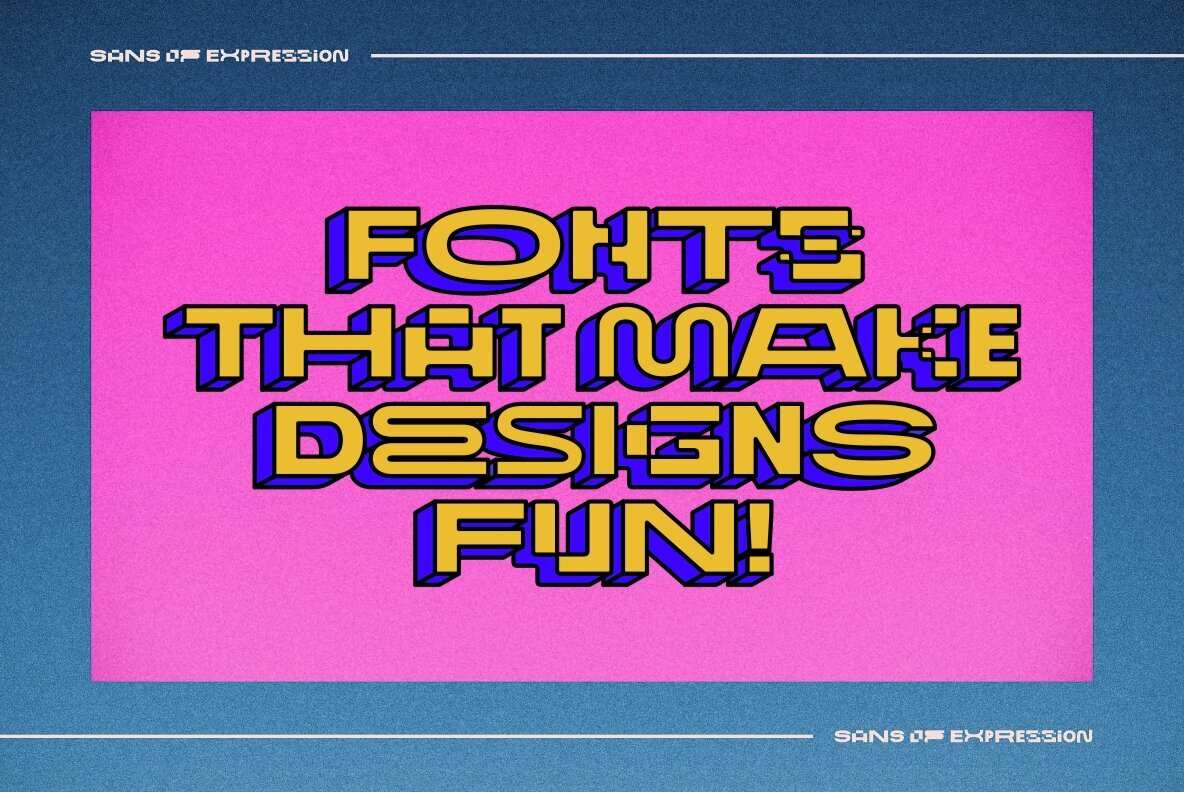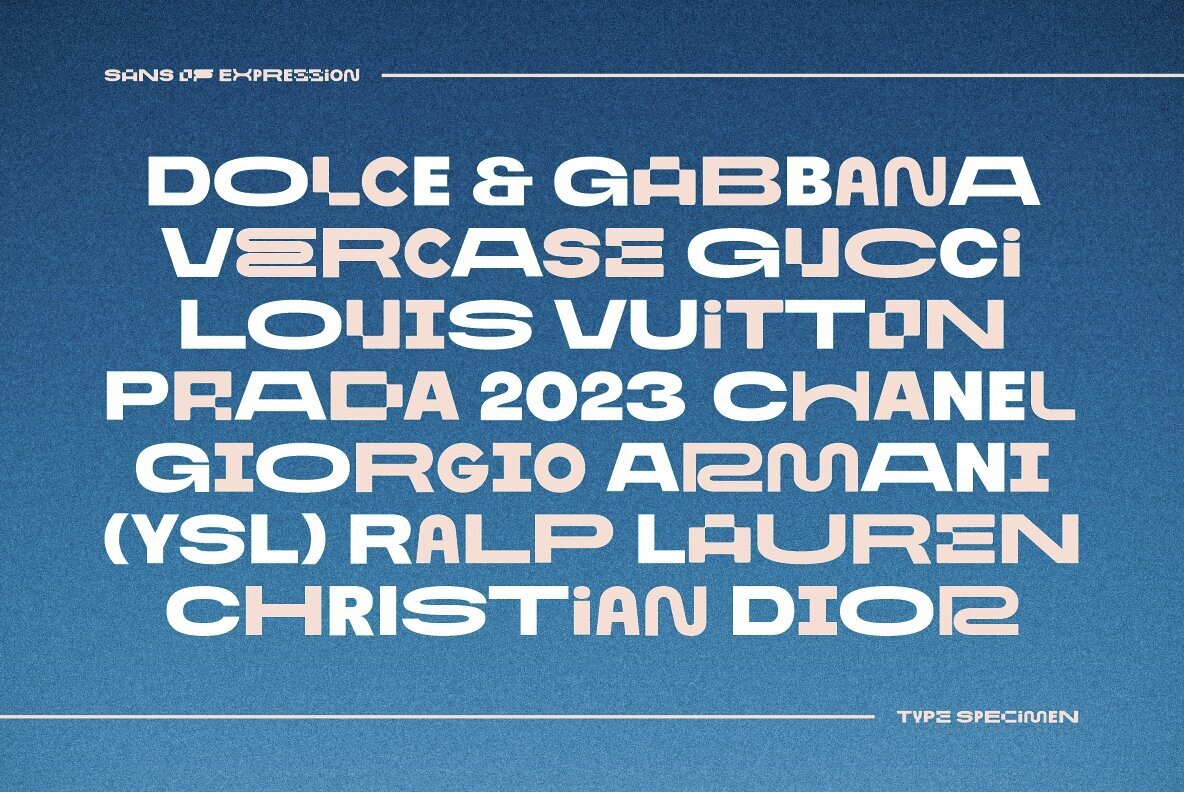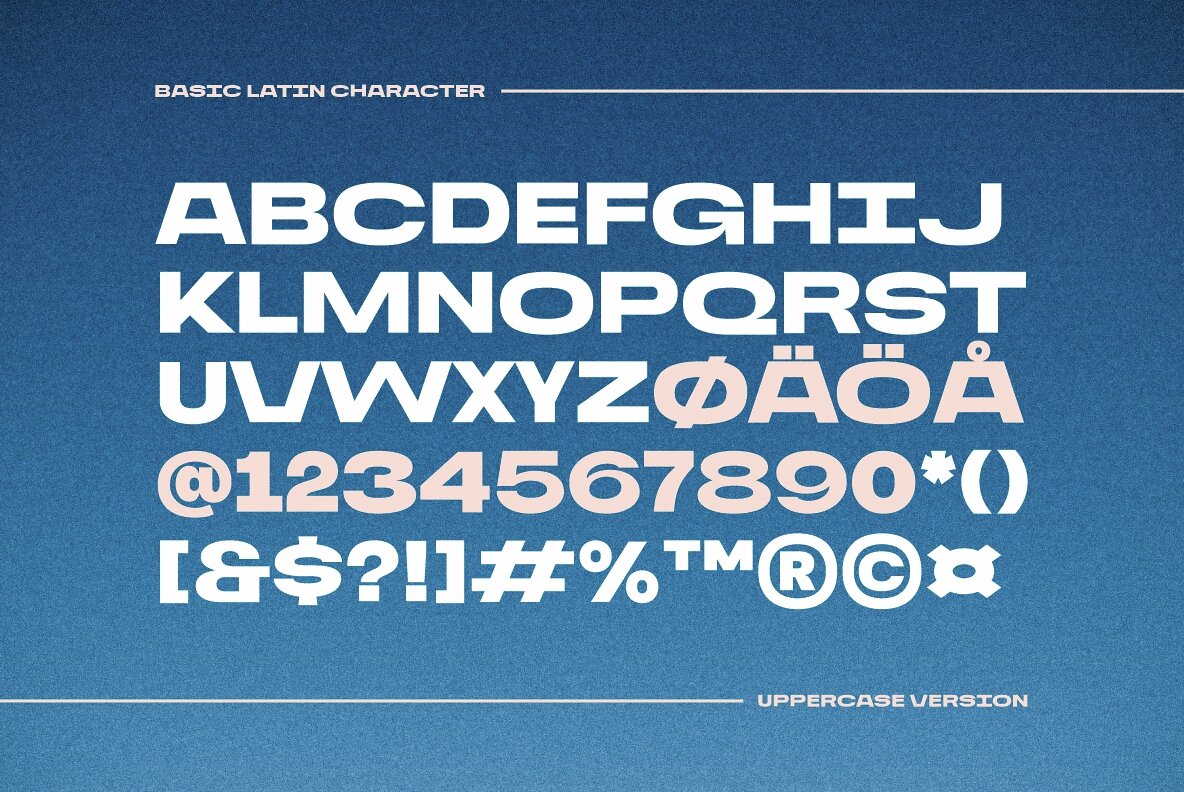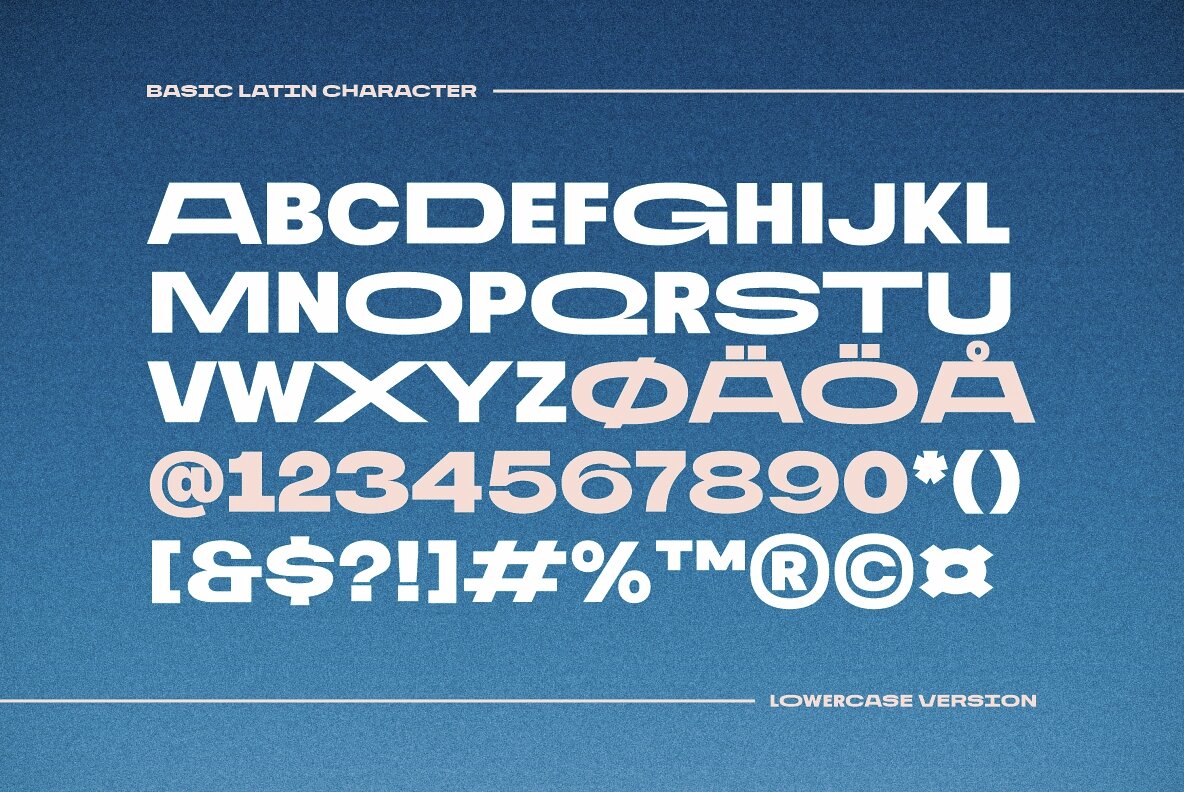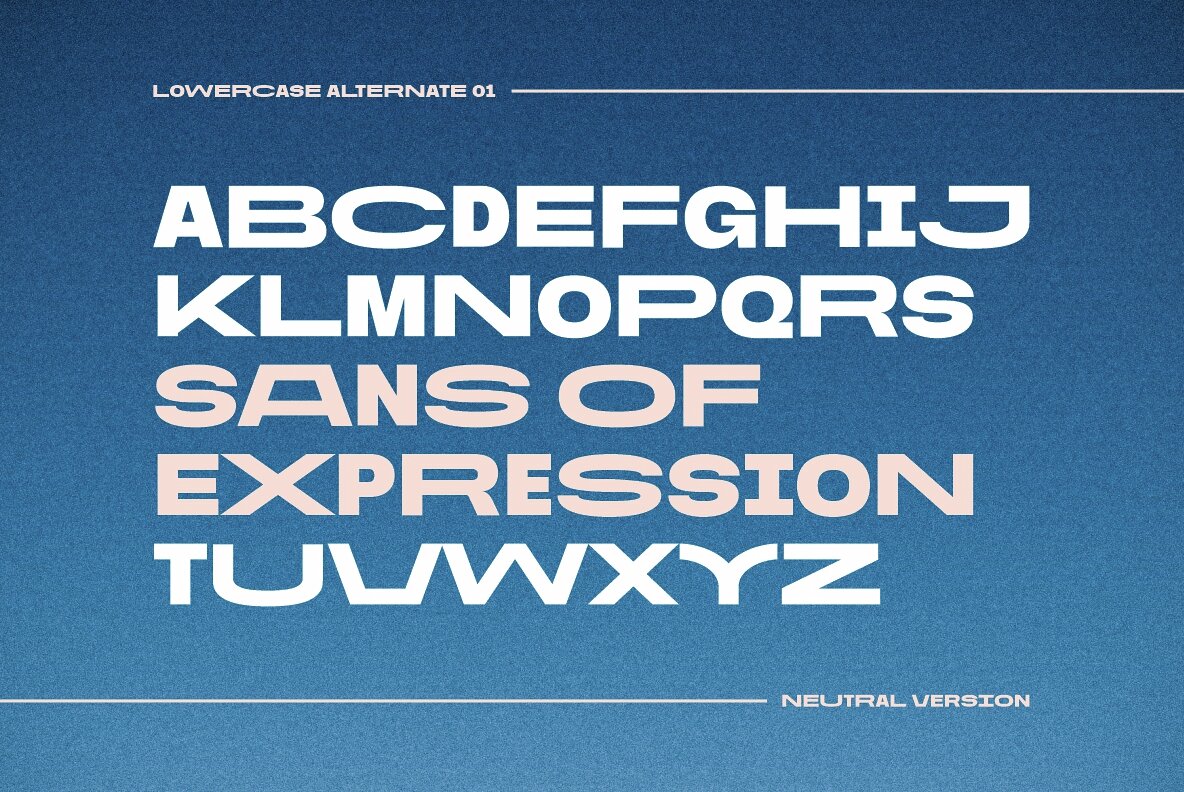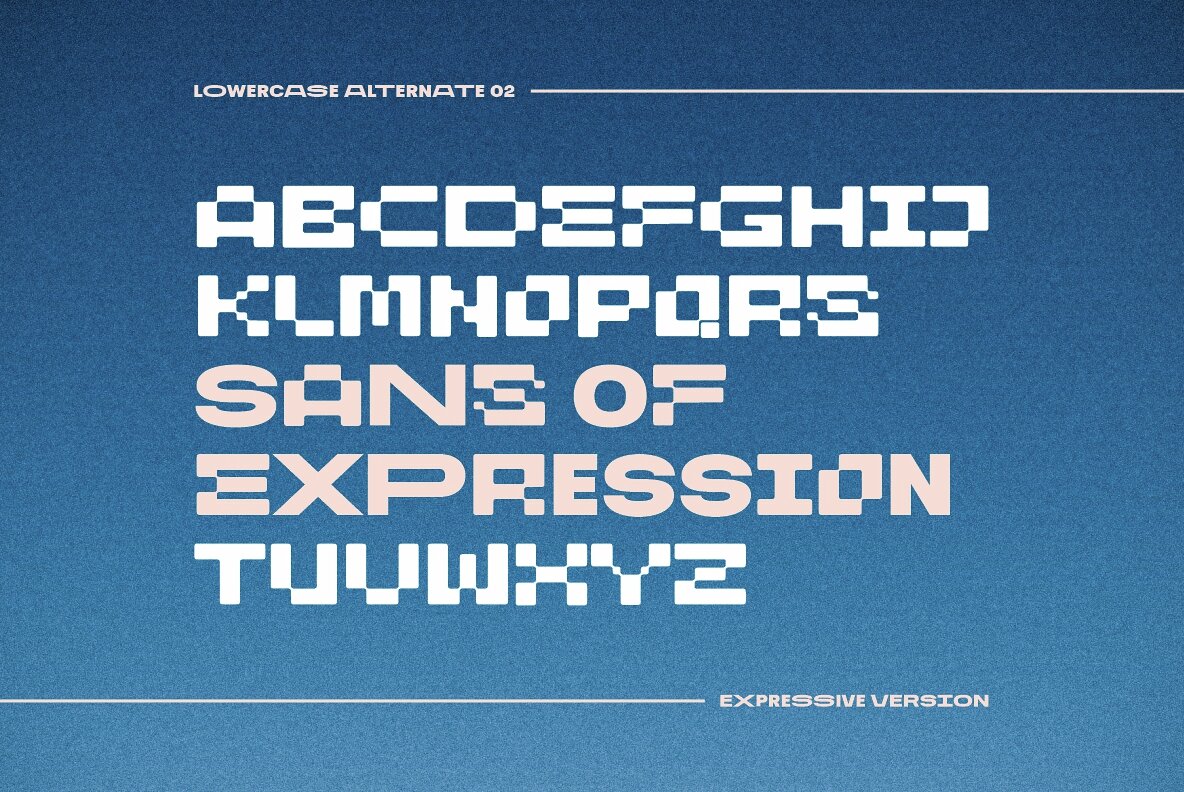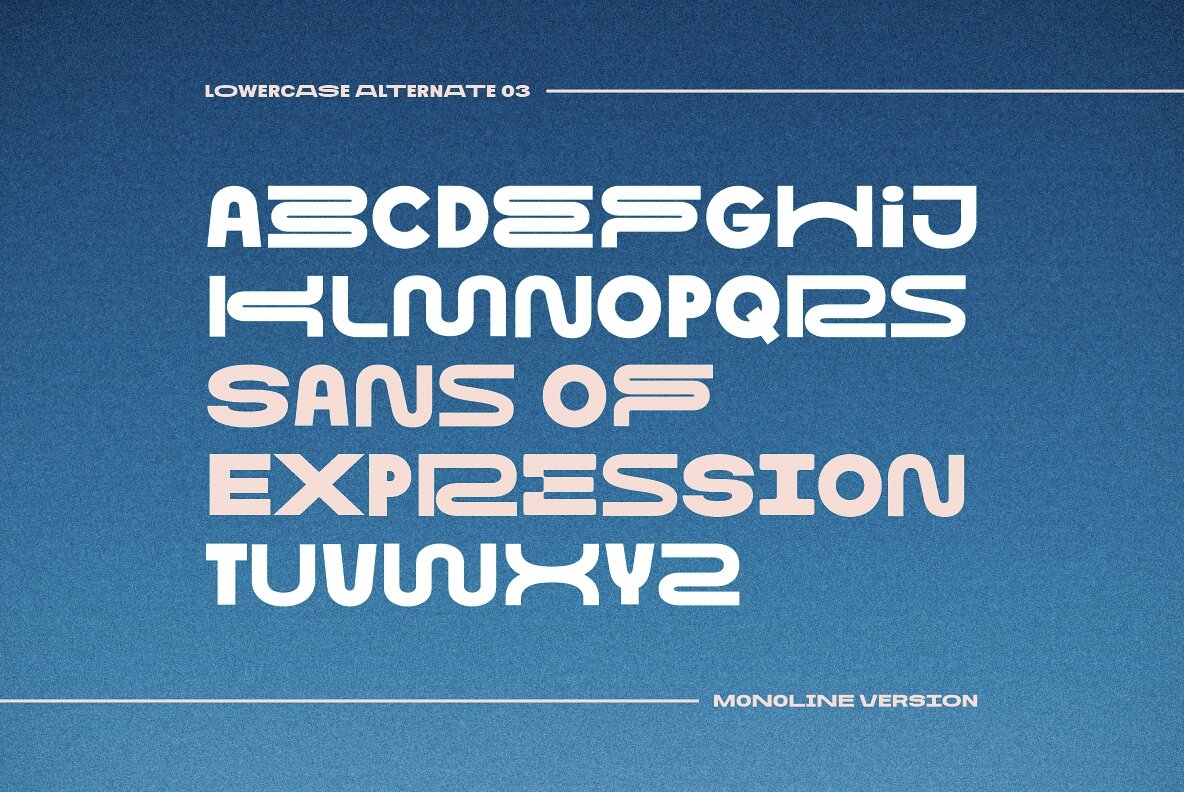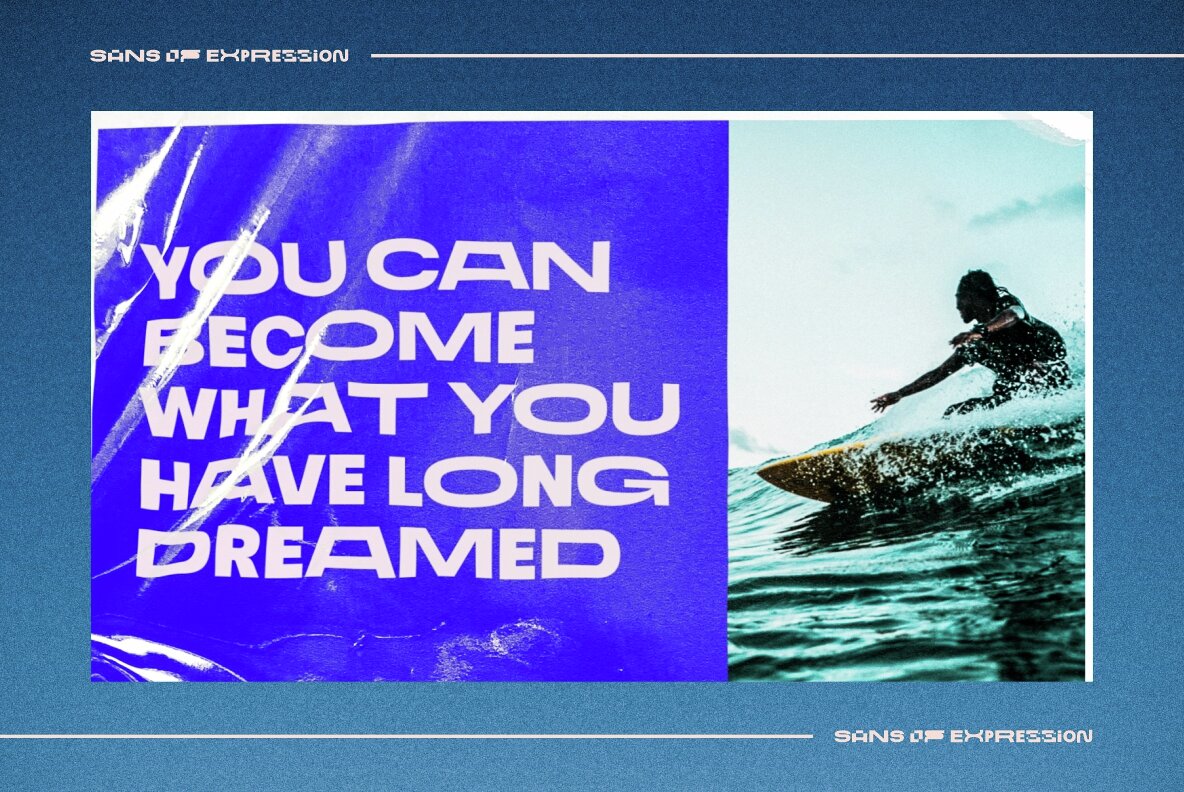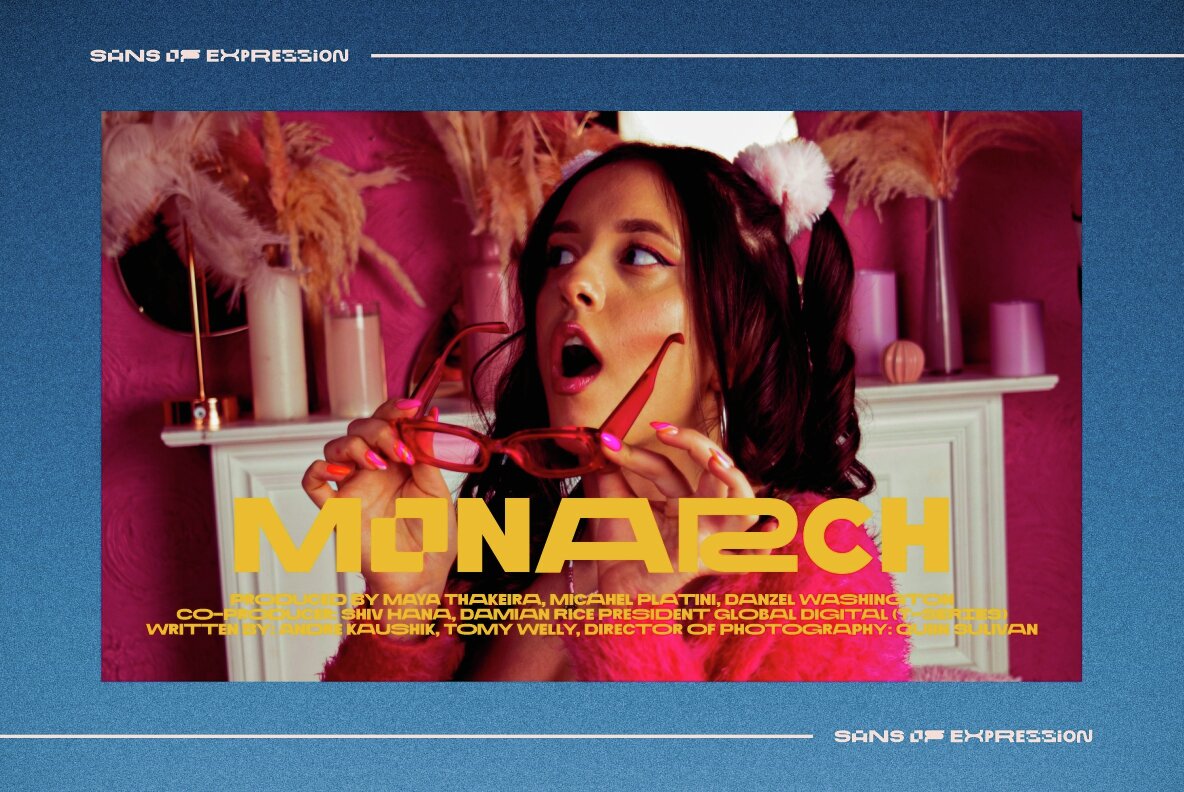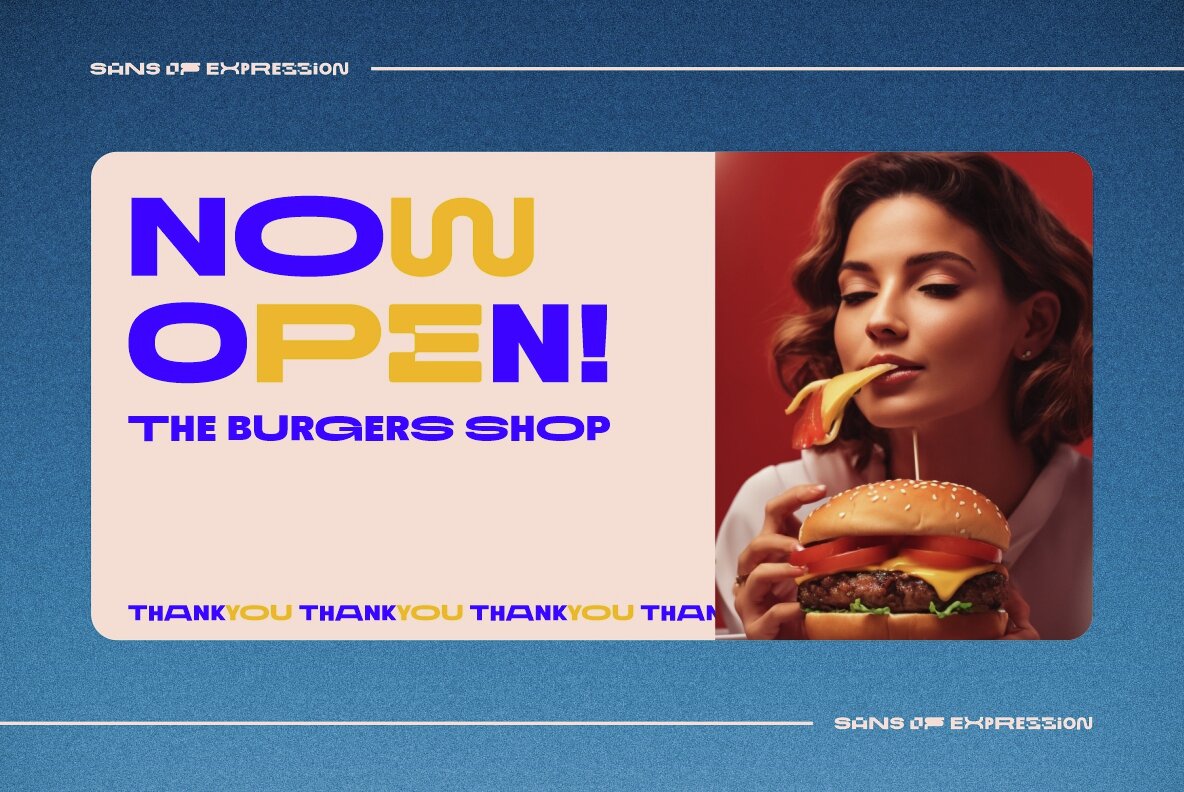
Sans of Expression Font
Sans of Expression Regular
Introducing the latest typeface by Redy Studio, Sans of Expression is a striking font featuring bold uppercase characters. Each letter boasts a distinct shape, complemented by alternative lowercase characters presented in three style variations Neutral, Expressive, & Monoline. Sans of Expression font is a versatile expression of creativity. Neutral style provides a bold look. Expressive styling adds a dynamic touch. Meanwhile, the monoline style offers a minimalist look. For a closer look, explore the details in the preview. Thank you for checking out Paramour! I hope you find it enjoyable, and feel free to give it a try below!